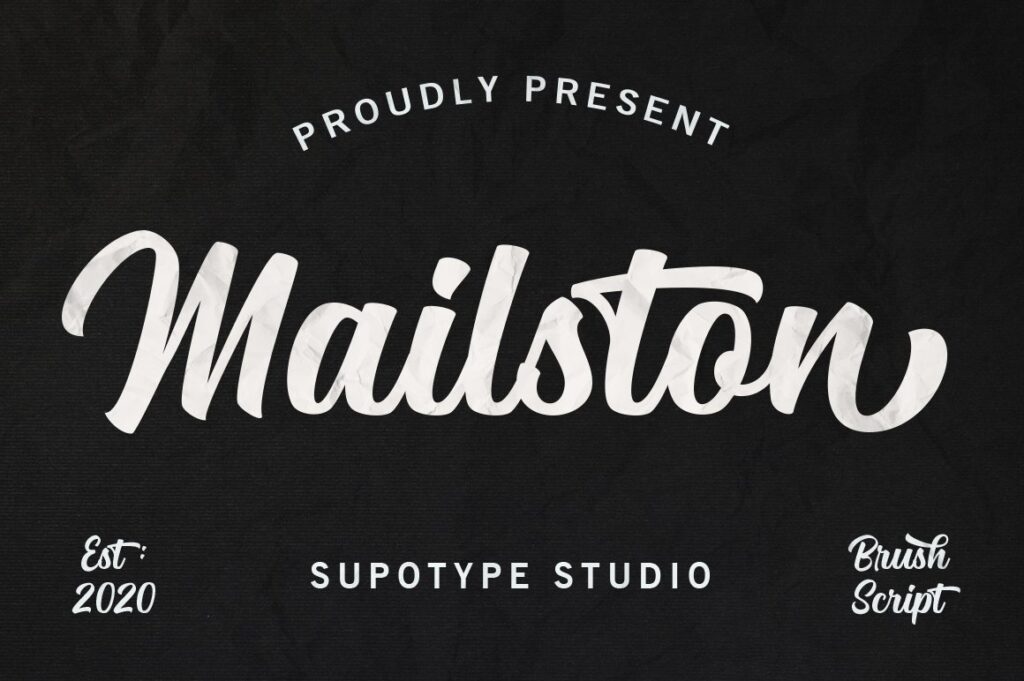
Mailston modern script fonts, This font is perfectly made to be applied especially in logos, and various other formal forms such as invitations, labels, logos, magazines, books, greeting/wedding cards, packaging, fashion, makeup, stationery, novels, labels or any type of advertising purpose.